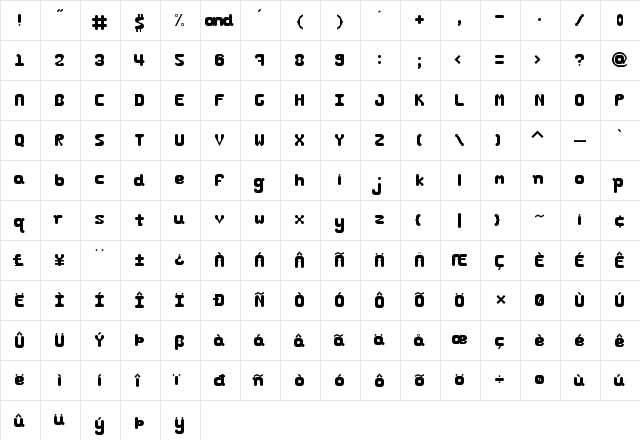
Delfonti Regular
| Designer | MarkKoop |
Design Context for Delfonti Typeface
Delfonti is a composed and adaptable typeface that performs quietly and consistently across a wide range of design contexts.